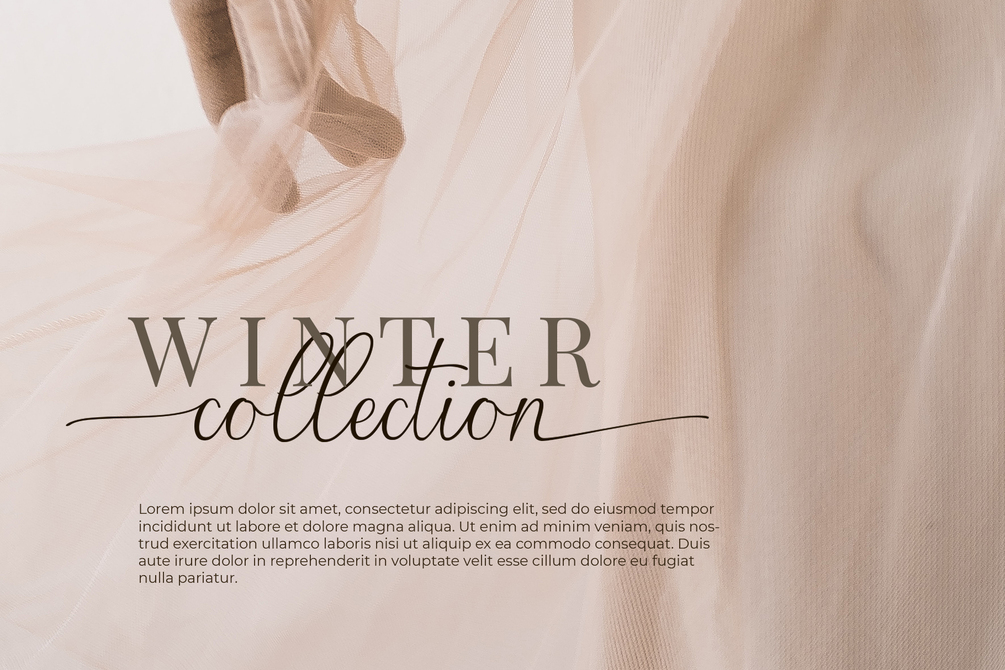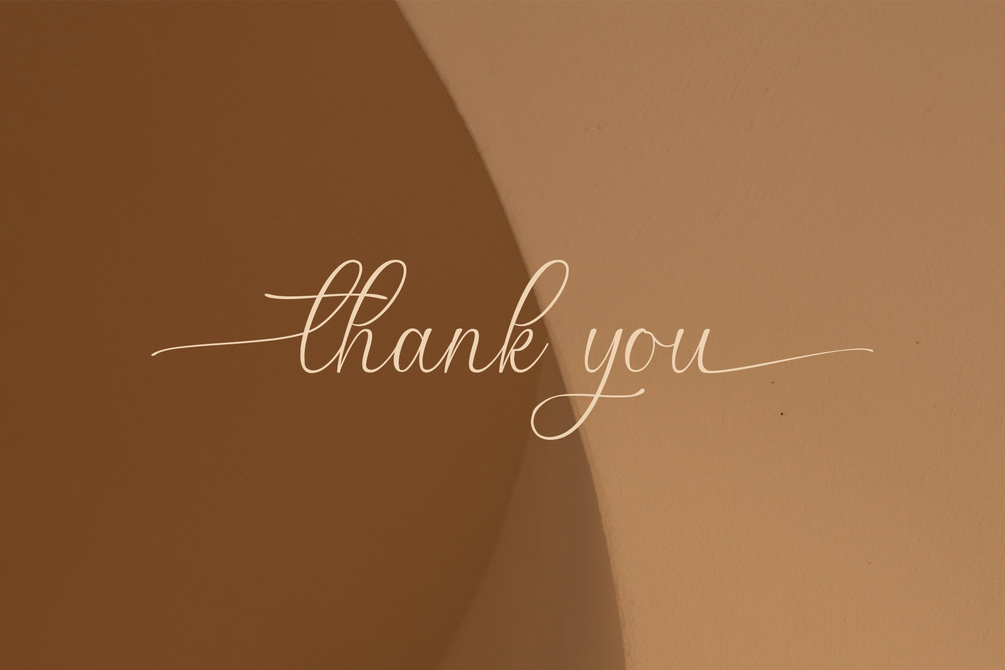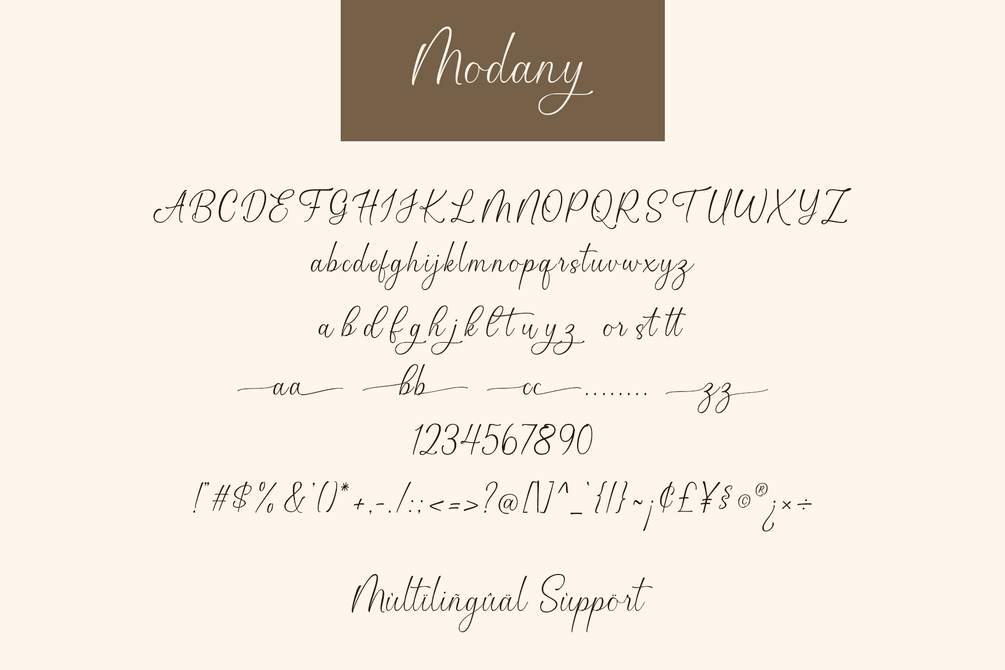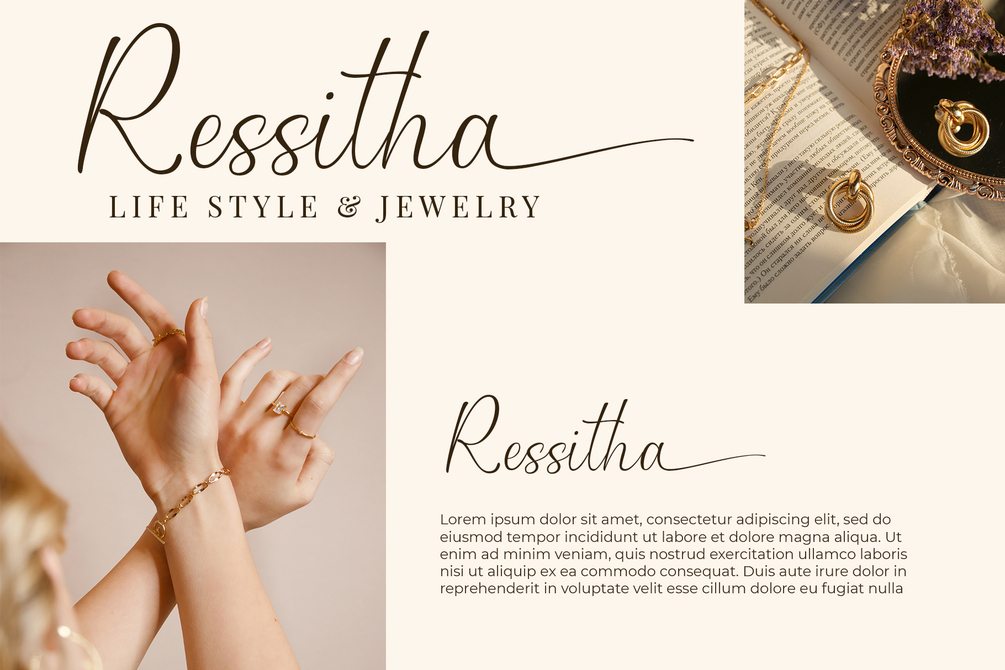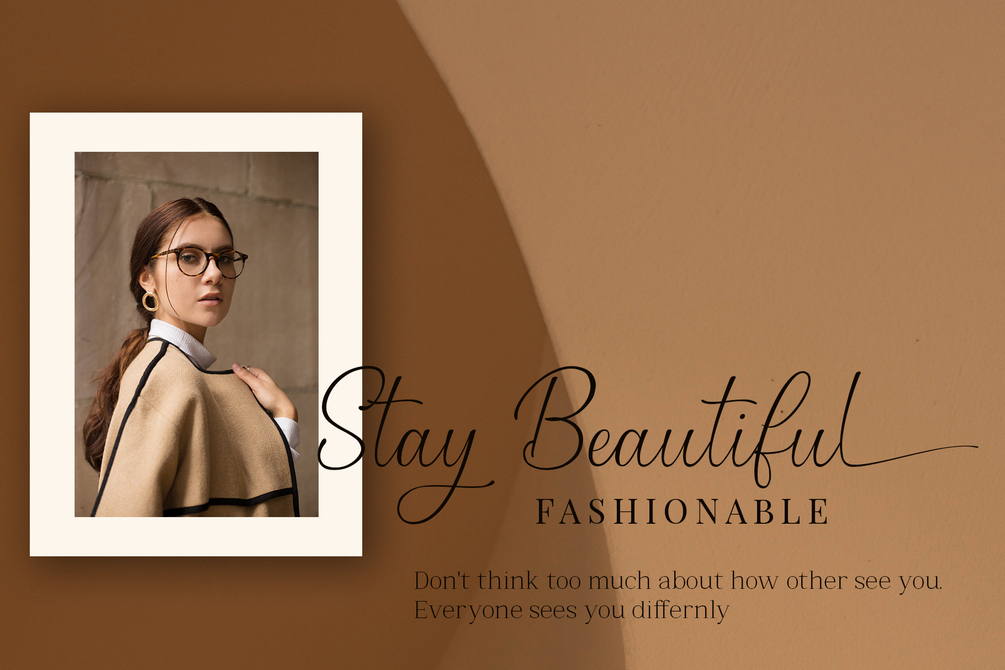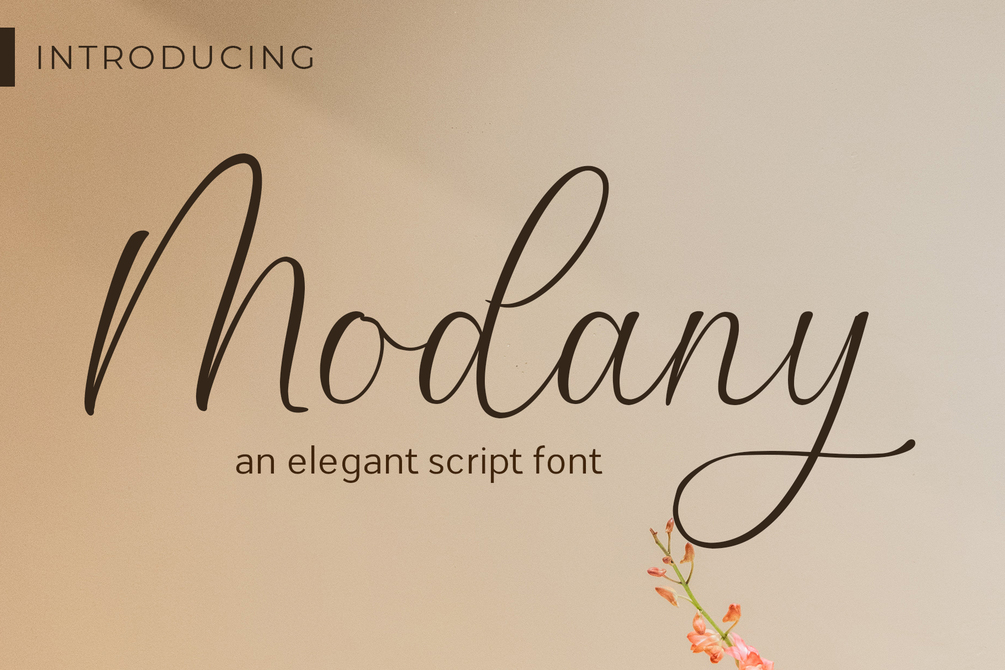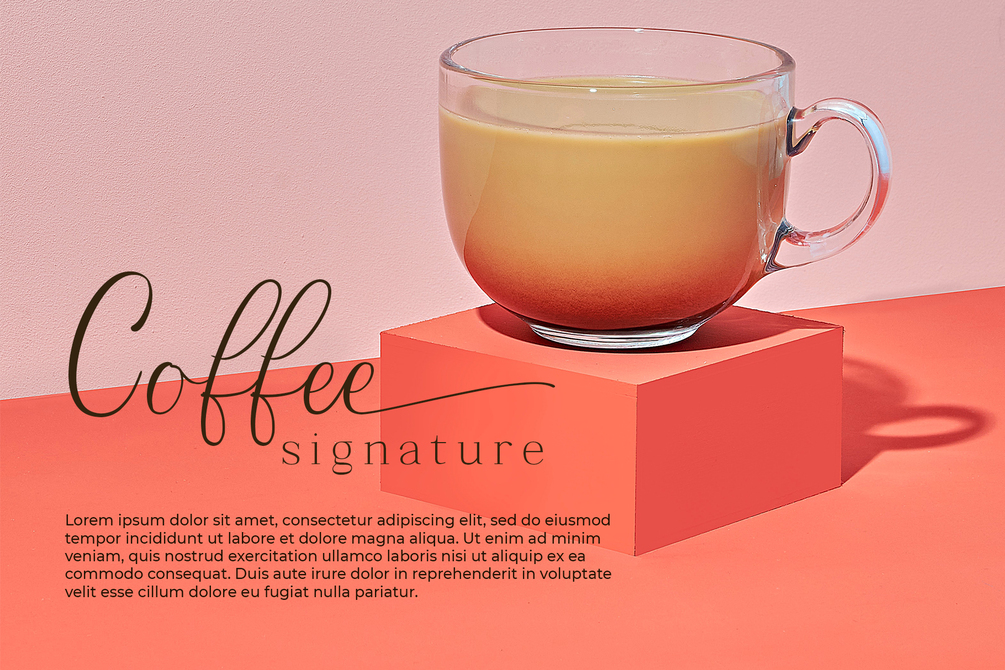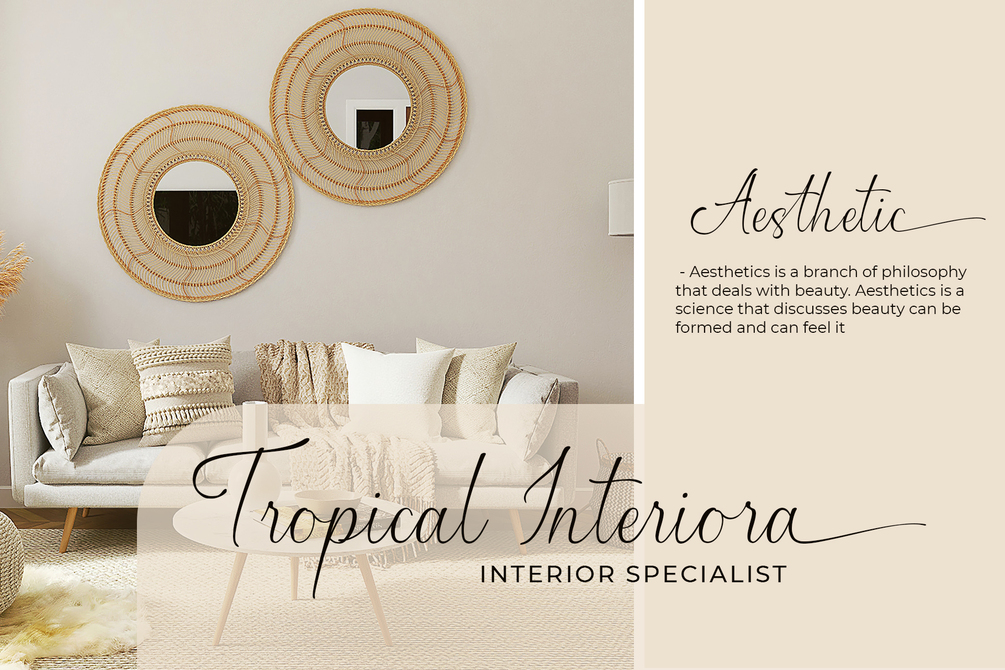
Modany - Elegant Script
Introducing Modany: The Elegant and Feminine Script Font
Elevate Your Designs with Graceful and Sophisticated Typography
Discover Modany, an exquisite script font designed to add elegance and femininity to your creative projects. Whether you're working on wedding invitations, branding, or any design that calls for a touch of sophistication, Modany is the perfect choice.
Key Features:
• Elegant and Feminine Design: Modany combines graceful curves with refined lines, creating a beautiful script that enhances any design with a touch of elegance.
• Intricate Swashes: Each character flows seamlessly into the next, with delicate swashes that add a romantic and harmonious feel to your text.
Why Choose Modany?
Romantic and Sophisticated: Modany’s flowing lines and elegant swashes make it ideal for designs that need a romantic and feminine touch.
Versatile for Various Applications: From wedding invitations to branding, Modany adds a personal and sophisticated touch to any project.
Enhanced Readability: Despite its intricate design, Modany ensures that your text remains clear and easy to read, providing both beauty and functionality.
Transform Your Typography with Modany
Modany is more than just a font; it’s a tool for creating beautiful and meaningful designs. Its elegant and feminine style, combined with the unique swash connections, makes it the perfect choice for projects that need a touch of love and sophistication.